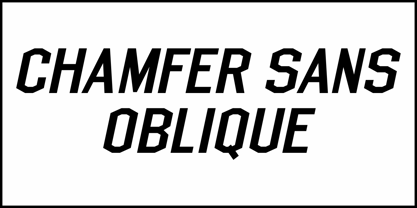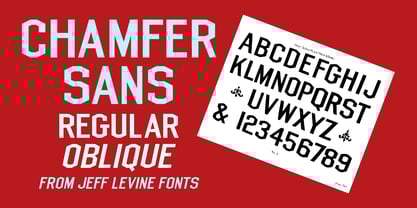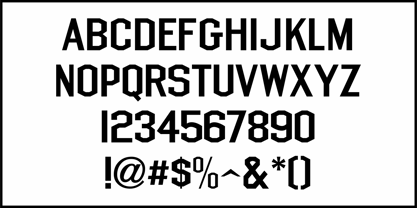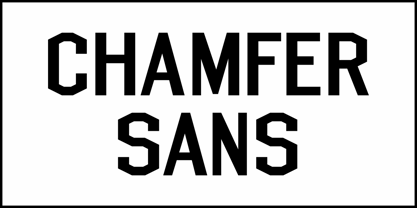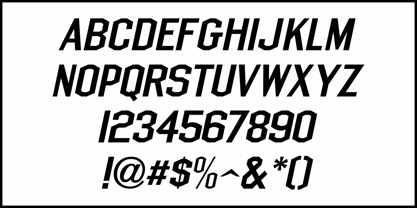
Chamfer Sans JNL
by Jeff Levine
The 1922 instructional lettering book "Imelli's Alphabets & Layouts" contained "Half Block Plain, Thick and Thin", a chamfered sans serif style which was extremely popular amongst sign painters of the early 1900s. A classic design, this is now available as Chamfer Sans JNL in both regular and oblique versions Visit Jeff Levine for more unique type designs.
Designers: Jeff Levine
Foundry: Jeff Levine